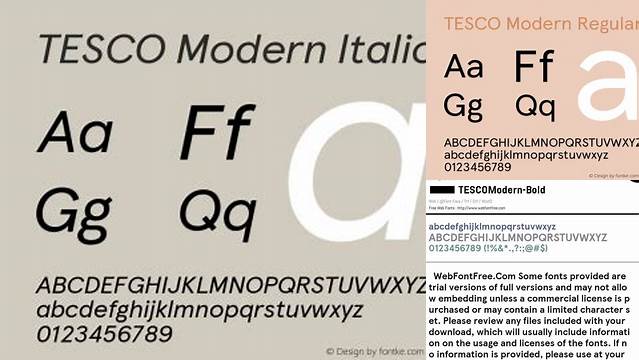
Tesco Modern Regular Font: Unveiling Its Features and Appeal
Alright, so what makes the Tesco Modern Regular font so special? Well, it's all about that sleek, modern vibe. It’s a sans-serif font, meaning it doesn't have those little strokes at the ends of the letters (serifs). This gives it a clean and contemporary look, making it super versatile for a bunch of different applications. Think of it as the stylish, minimalist friend in your font collection. The font's appeal lies in its simplicity and readability. It's designed to be easy on the eyes, whether you're reading it on a screen or in print. This makes it ideal for everything from website headings to body text in brochures. The Tesco Modern Regular font often gets the nod because it's not overly flashy or distracting. Instead, it provides a clear and professional appearance. This makes it a great choice if you're aiming for a clean, modern aesthetic that still feels approachable. It’s the kind of font that doesn't shout, but rather, it subtly guides the reader. It’s also worth noting that the font typically comes with a range of characters and glyphs, allowing for flexibility in its usage. This ensures that you can cover a wide array of languages and special characters. Guys, the font's availability and the ease with which it can be implemented in various design platforms are also huge pluses. Whether you're using Adobe products, or open-source software, the Tesco Modern Regular font typically works seamlessly. You’ll appreciate that it’s designed to look great at various sizes, which is important for different design needs.
It’s an excellent font for branding. Think about the impact of a consistent font across all your marketing materials. The Tesco Modern Regular can help create a cohesive brand identity. You can use the font on your website, social media, and print materials, making sure that your brand has a unified voice. This consistency strengthens brand recognition and makes it easy for customers to identify you. The font's versatility also extends to the types of products that it looks great on. You can use the Tesco Modern Regular font for creating logos, marketing materials, and presentations. For example, think about the font being used on packaging labels, website designs, and in-house documents. All of these uses contribute to a consistent and recognizable brand experience. The font's simplicity also works well for both small and large businesses. The font's readability ensures that your messaging will be easily understood. The font's availability and the ease with which it can be implemented in various design platforms are also huge pluses. Whether you're using Adobe products, or open-source software, the Tesco Modern Regular font typically works seamlessly. You’ll appreciate that it’s designed to look great at various sizes, which is important for different design needs.
Tesco Modern Regular Font: A Closer Look at Its Design and Characteristics
So, let's get into the nitty-gritty of the design itself. The Tesco Modern Regular font is generally characterized by its clean lines and balanced proportions. The characters are typically well-defined, making them easy to read even at smaller sizes. You'll find that it often has a slightly rounded feel, which adds a touch of softness and approachability. This contrasts nicely with the sharp, modern edges that are sometimes found in other sans-serif fonts. The font's design is all about clarity and simplicity. The letterforms are usually carefully crafted to ensure optimal readability. The spacing between the letters and words is also fine-tuned to provide a comfortable reading experience. The designers behind this font have clearly put a lot of thought into making it as user-friendly as possible. When you use this font, you'll notice that it's designed to be adaptable to various design contexts. This means that it works well on both light and dark backgrounds, and it pairs well with other fonts. Guys, this versatility makes it an excellent choice for designers who need a font that can do a lot of things. The font's characteristics are often ideal for body text. The design typically emphasizes legibility over ornamentation. This is vital for ensuring that the readers can comfortably read long passages of text without getting fatigued. The font's design is usually consistent across all characters, which helps to create a sense of visual harmony and professionalism. The font’s availability and the ease with which it can be implemented in various design platforms are also huge pluses. Whether you're using Adobe products, or open-source software, the Tesco Modern Regular font typically works seamlessly. You’ll appreciate that it’s designed to look great at various sizes, which is important for different design needs.
It’s worth exploring the subtle design details that distinguish this font from others. The curve of the letters, the weight, and the overall balance contribute to its unique character. You’ll find that the font’s subtle design is not something you immediately notice, but it works in the background to enhance readability and visual appeal. The font is designed to complement a wide range of design styles. This makes it a great choice if you want a font that can adapt to various design trends. You'll appreciate that it's also a font that looks good on screens and in print. This ensures that your design looks great regardless of how the user is viewing it.
Tesco Modern Regular Font: Comparing it to Other Similar Fonts
Let’s have some fun and compare the Tesco Modern Regular font to other fonts! This is a good way to understand its unique characteristics. Think about the other sans-serif fonts. Fonts like Arial and Helvetica are common choices, but the Tesco Modern Regular font has a unique style that makes it stand out. The Tesco Modern Regular font has its own distinct personality. While it shares some characteristics with these other fonts, such as a lack of serifs and a clean appearance, it often has a slightly warmer and more approachable feel. This difference could be subtle, but it’s very important for the overall look and feel of your design. The comparison is useful because it can help you appreciate the differences between the fonts. For example, some fonts may have a more condensed appearance, while others might have a wider character set. The Tesco Modern Regular font's design balances readability with its contemporary appeal, and the others might go for something different. Guys, the font’s design might offer a slightly softer aesthetic compared to some other popular sans-serif fonts. This can be a game-changer, especially if you want to convey a sense of friendliness or approachability. The Tesco Modern Regular font is often favored for its clean and modern look, while still retaining a touch of warmth. Comparing it to other fonts also helps determine which font is suitable for your project. By understanding the nuances of each font, you can make an informed decision based on your project’s specific needs. The comparison also lets you explore how different fonts perform in different settings. You can find out which font is suitable for your needs, by looking at the specific weights and styles available for each font.
By comparing the font to others, you can identify its unique characteristics. For example, some fonts may have a more condensed appearance, while others may have a wider character set. The Tesco Modern Regular font's design balances readability with contemporary appeal. It gives the font a slightly softer aesthetic than some other sans-serif fonts. This is a game-changer if you want to convey a sense of friendliness or approachability. The font’s design often includes unique letterforms that contribute to its distinctiveness. These small details can significantly impact the overall look and feel of a design. You can make an informed decision based on your project’s specific needs by looking at the comparison. You can explore how different fonts perform in different settings and find out which is suitable for your needs. You can look at the specific weights and styles available for each font.